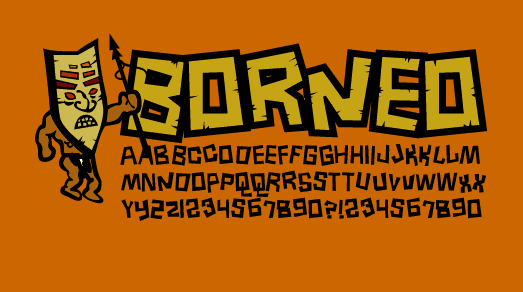
Borneo
Somebody somewhere said they wanted me to drop some old skool flava. I can\’t resist making a little music on the keyboard in the retro typeface department. So, Somebody, this puppy\’s for you!